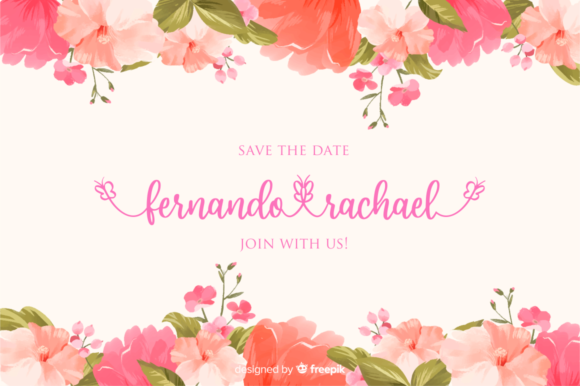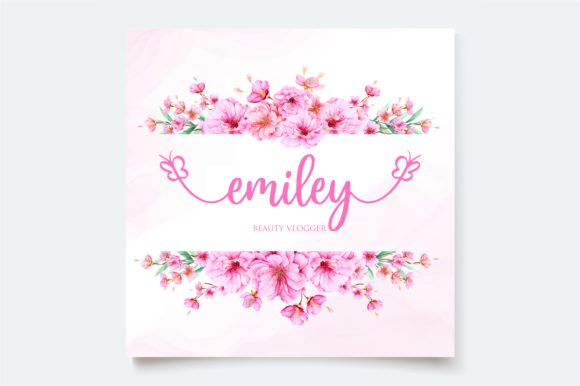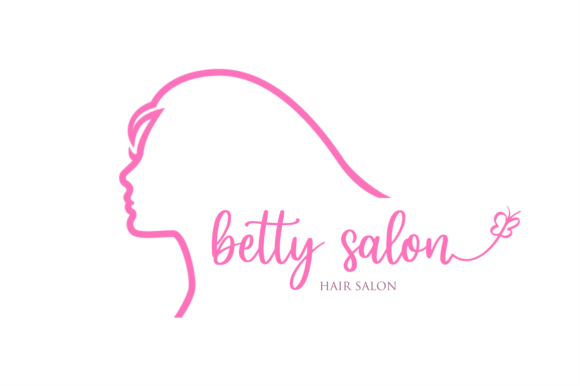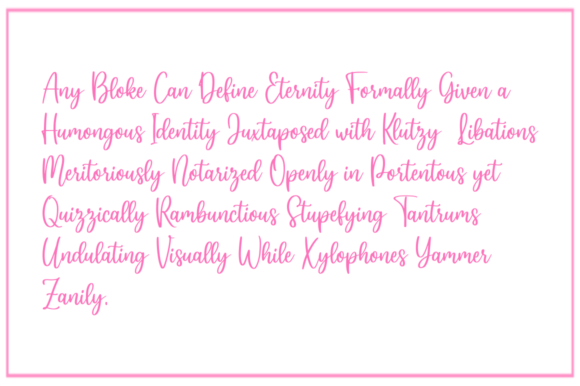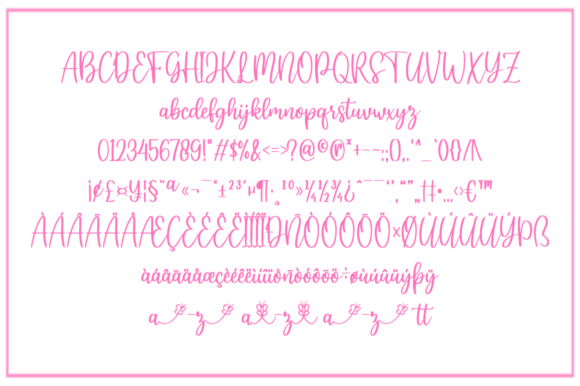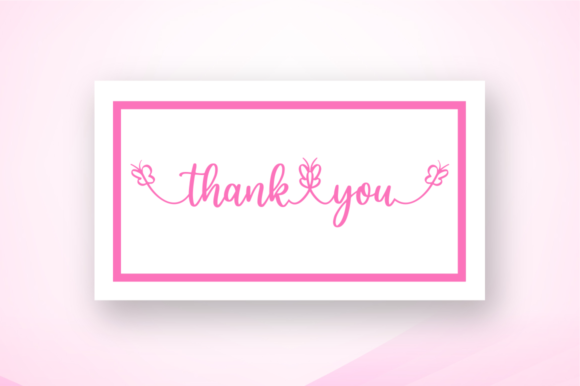
Hey Butterfly Font
About Hey Butterfly Font
Hey Butterfly is a gorgeous handwritten font. It features cute butterfly-themed characters that will take your projects to the next level!